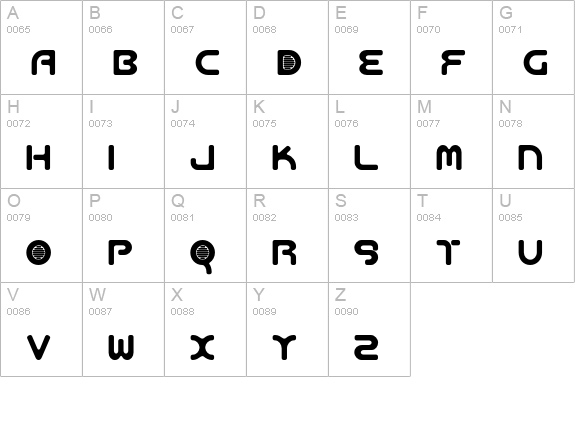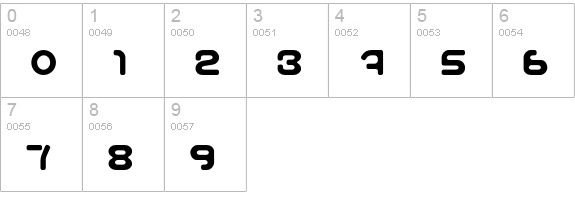
AeosSingle font is a modern and sleek typeface that exudes elegance and sophistication. With its clean lines and stylish curves, this font is perfect for various design projects, including branding, logos, editorial design, and more. The versatility of AeosSingle font makes it a go-to choice for designers looking to add a touch of sophistication to their work. The best part about AeosSingle font is that it is available for free download at FontsMarket.com. This means that you can easily access this stunning font without having to spend a dime. Whether you are a professional designer or a hobbyist looking to elevate your projects, AeosSingle font is a must-have in your font collection. Download AeosSingle font today from FontsMarket.com and unlock a world of possibilities for your design projects. Let this elegant and stylish font take your work to the next level and make a lasting impression on your audience.